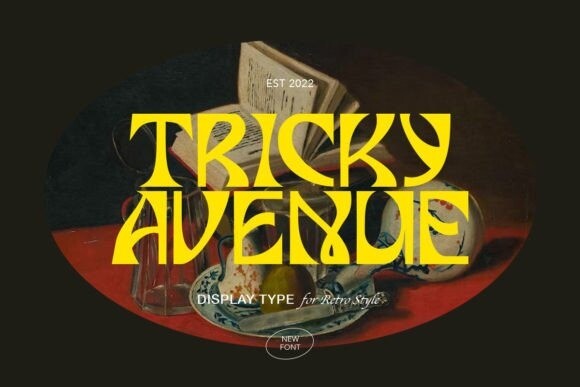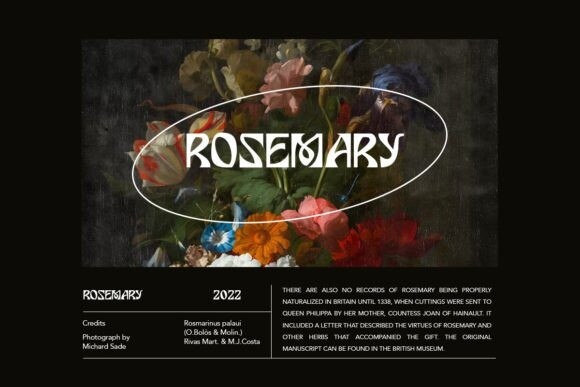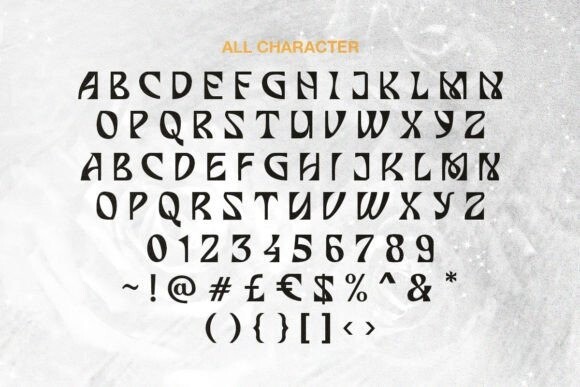
Tricky Avenue Font
Tricky Avenue Font is a serif display font that you can use for projects that require contemporary and modern looks. With a unique and uncommon shape, this font will make your design more appealing and stunning. This font is suitable for big and bold posters. Tricky Avenue also support multi language.